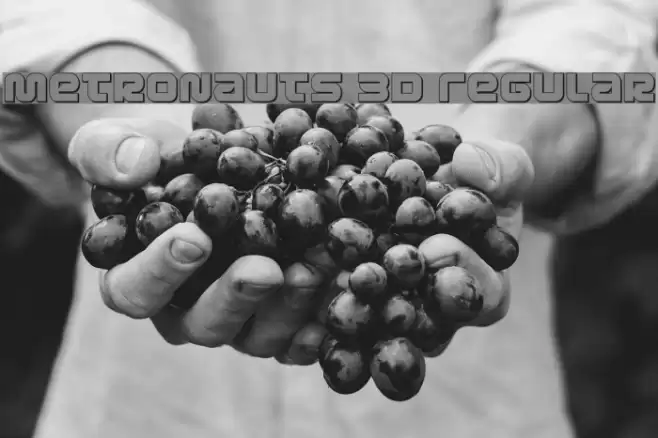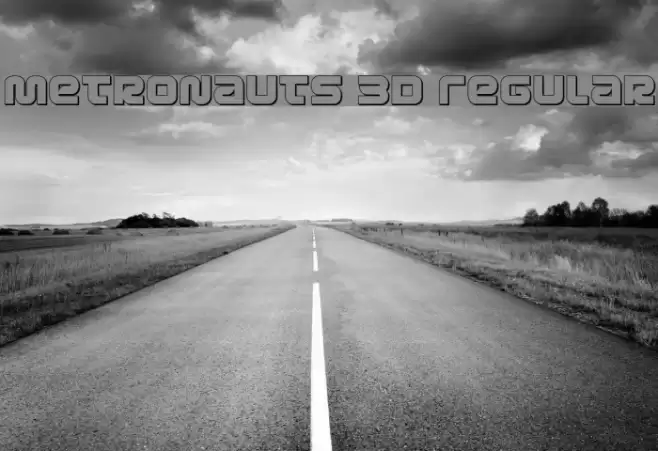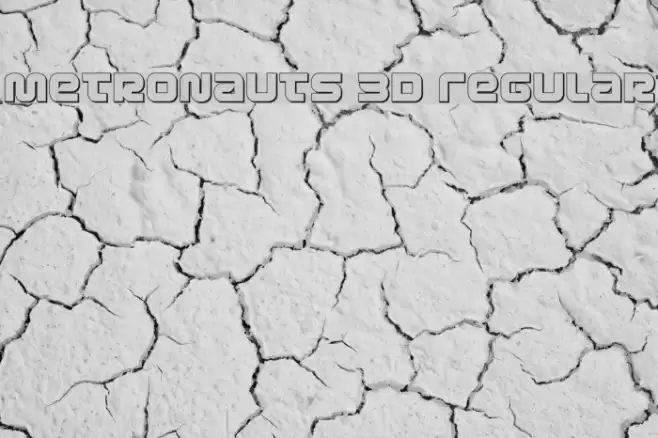
Metronauts 3D Regular Font
Metronauts 3D Regular Description
This font features a bold, geometric design with a 3D effect, giving each character a sense of depth and dimension. The letters are constructed with clean, straight lines and sharp angles, creating a futuristic and modern appearance. The uppercase and lowercase letters maintain a consistent style, with the lowercase mirroring the uppercase in form but slightly reduced in size. Numbers and special characters are designed to match the overall aesthetic, ensuring a cohesive look across all text. The font's outline style adds a unique touch, making it stand out in various design contexts.
A bold, geometric font with a 3D outline effect, perfect for modern designs from Uncategorized fonts.
- Proposed Projects: Ideal for futuristic branding, tech-related projects, video game titles, and sci-fi themed posters.